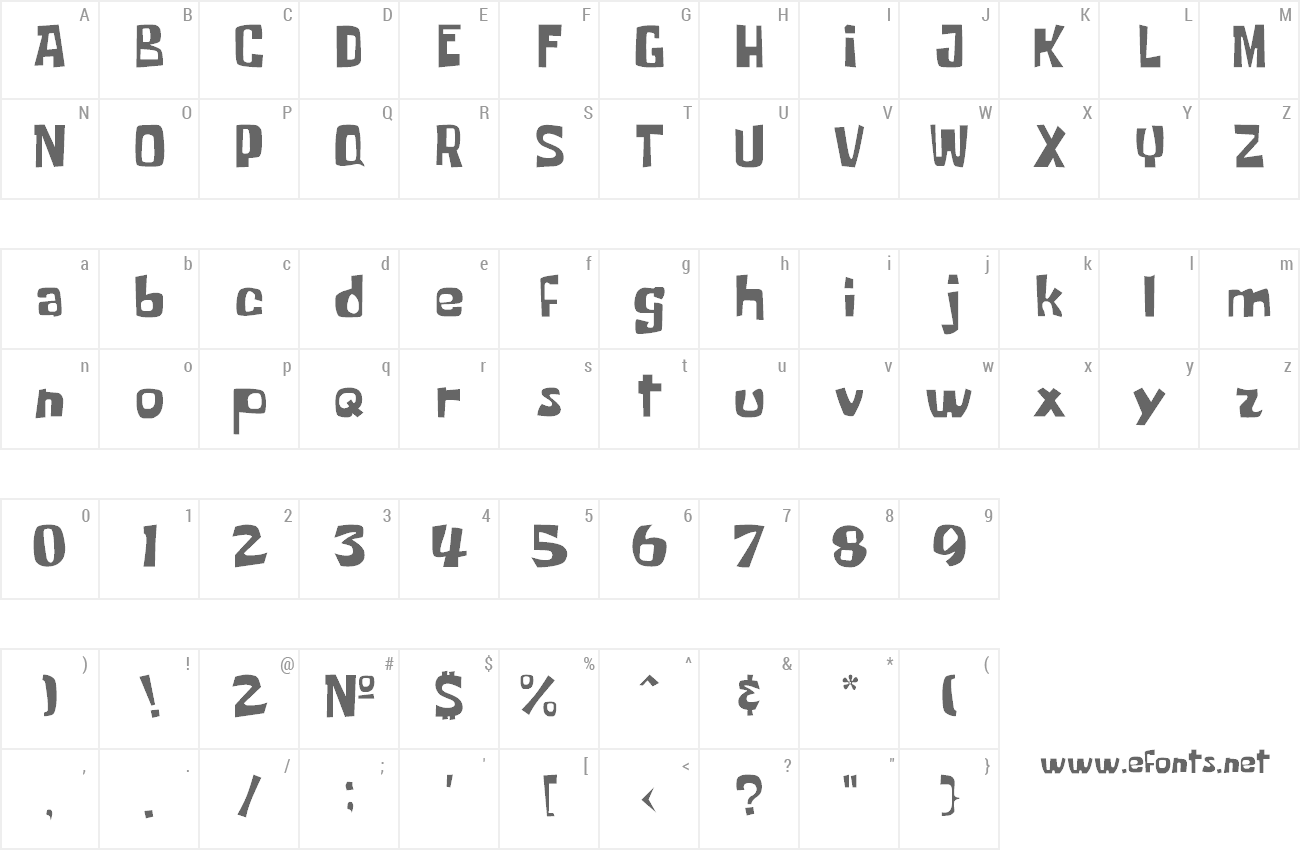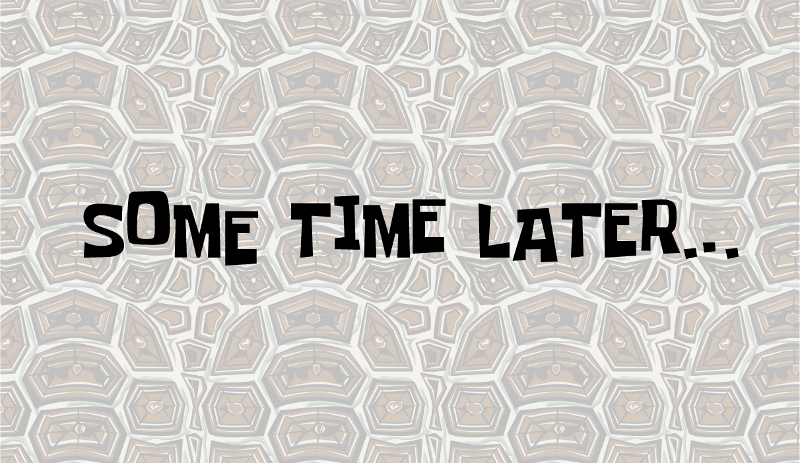
Some Time Later is an OFL-licensed recreation of the classic SpongeBob Squarepants™ typeface used in the credits, in the title cards of some episodes and most famously in the time cards. Author: Fredrick R Brennan More information available at https://github.com/ctrlcctrlv/some-time-later |